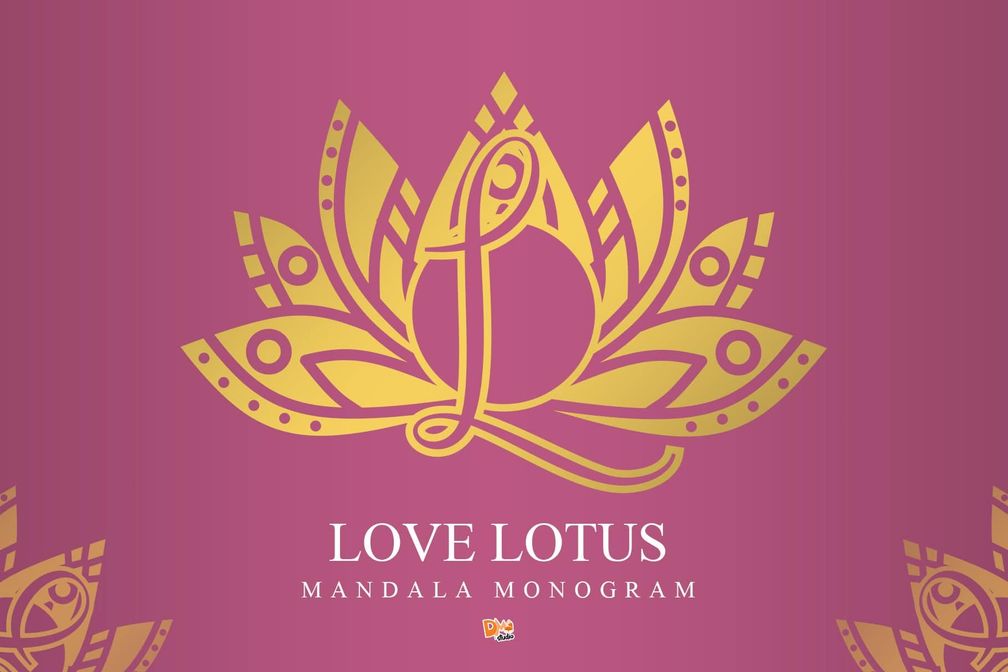
Love Lotus Mandala Monogram
Love Lotus Mandala Monogram – Romantic & Ornamental Lotus-Inspired Font
Love Lotus Mandala Monogram is a beautifully romantic monogram font that blends the timeless symbolism of the lotus flower with intricate mandala patterns. Perfect for wedding stationery, love-themed branding, and personalized gifts, this font captures elegance and affection in every detail. Each character is adorned with delicate curves and symmetrical designs, making it a standout choice for heartfelt and meaningful projects.
• Romantic Lotus Mandala Design: Each letter showcases beautifully crafted mandala patterns with a floral and loving aesthetic.
• Perfect for Romantic Projects: Ideal for wedding invitations, Valentine’s cards, engagement announcements, and love-themed branding.
• Ornamental & Sentimental Look: Blends floral charm with intricate line work for an elegant, heartfelt design.